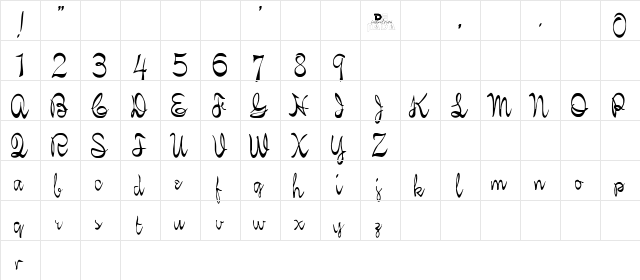
KellyBrown Regular
Design Context for KellyBrown Typeface
KellyBrown is a composed and adaptable typeface that performs quietly and consistently across a wide range of design contexts.